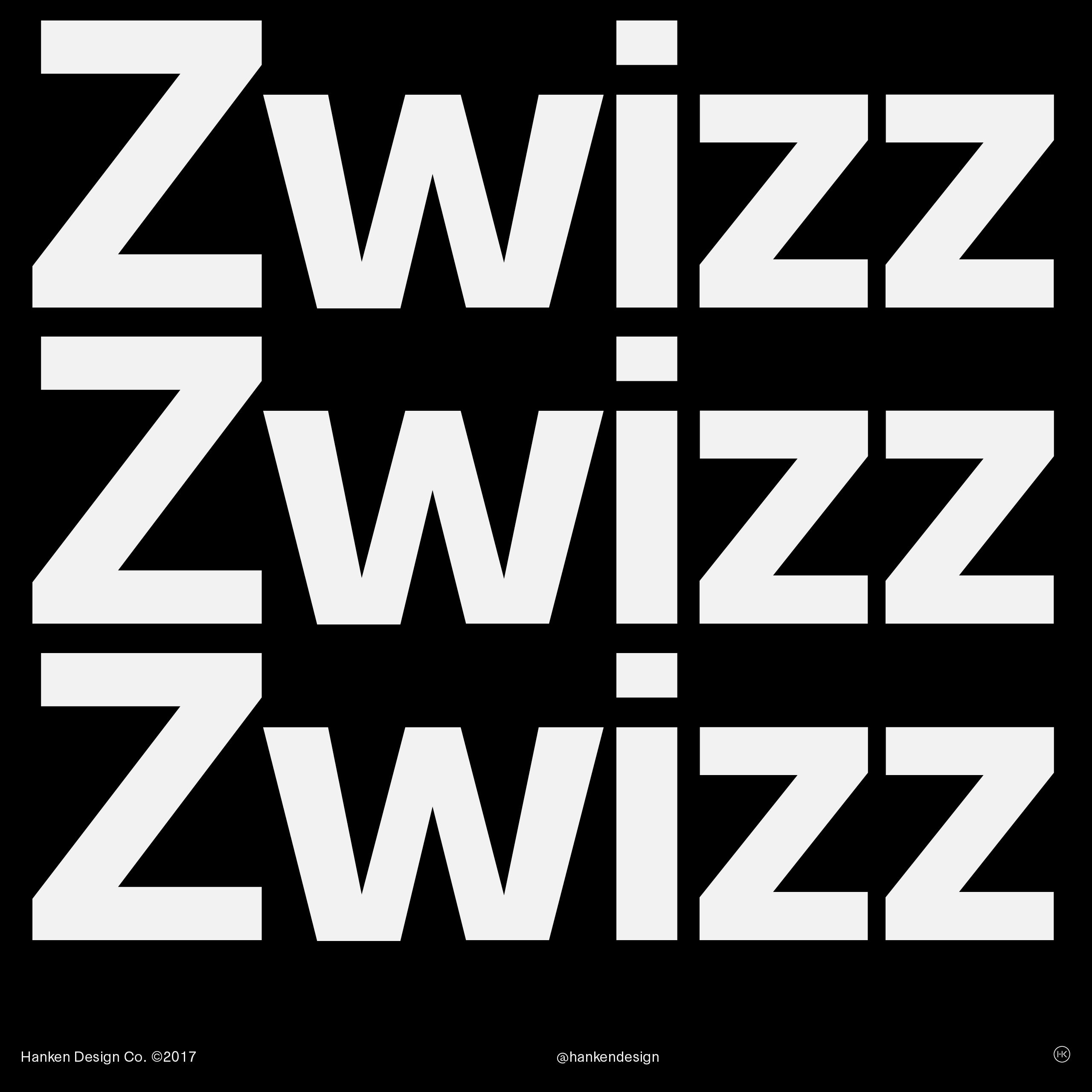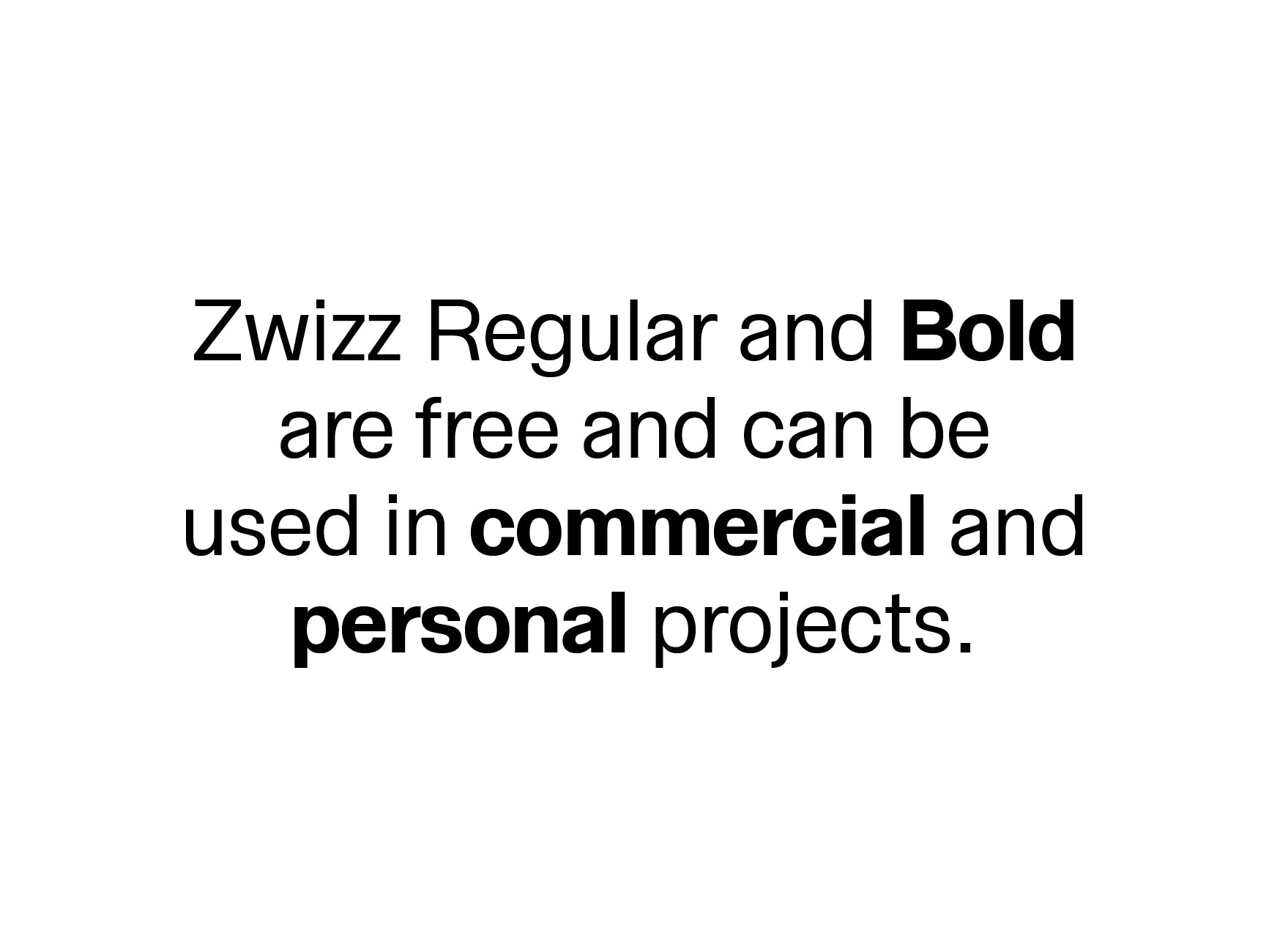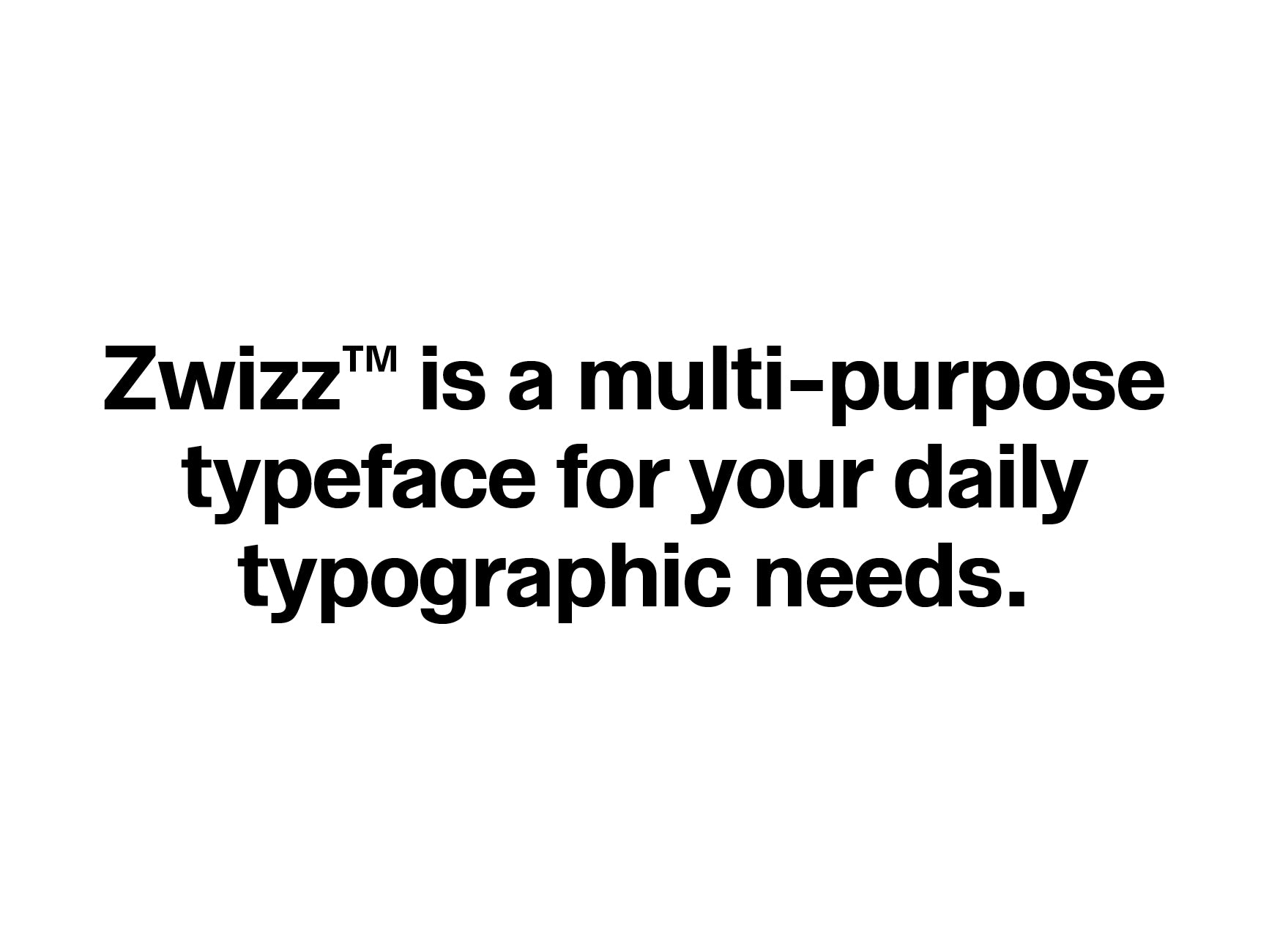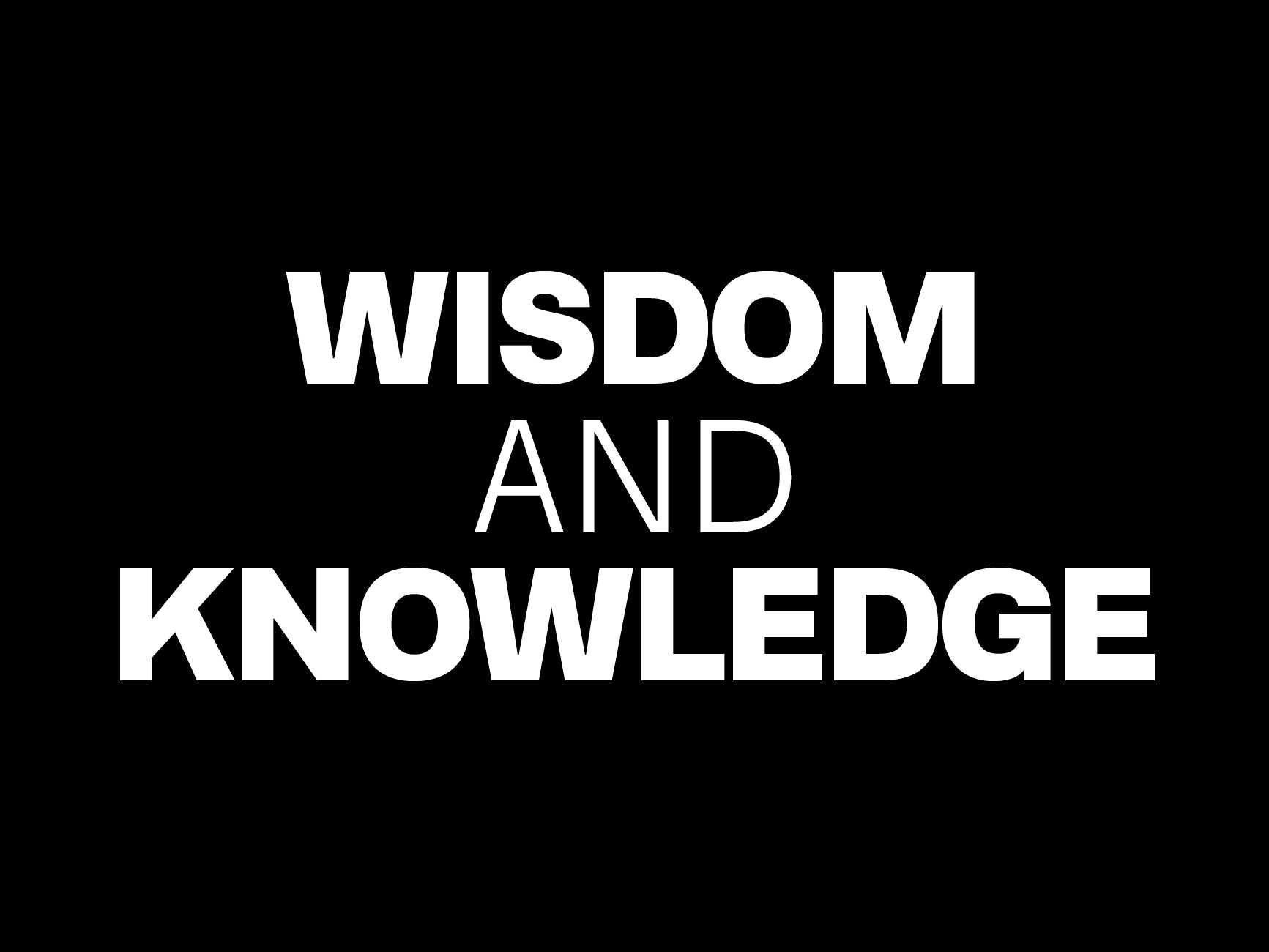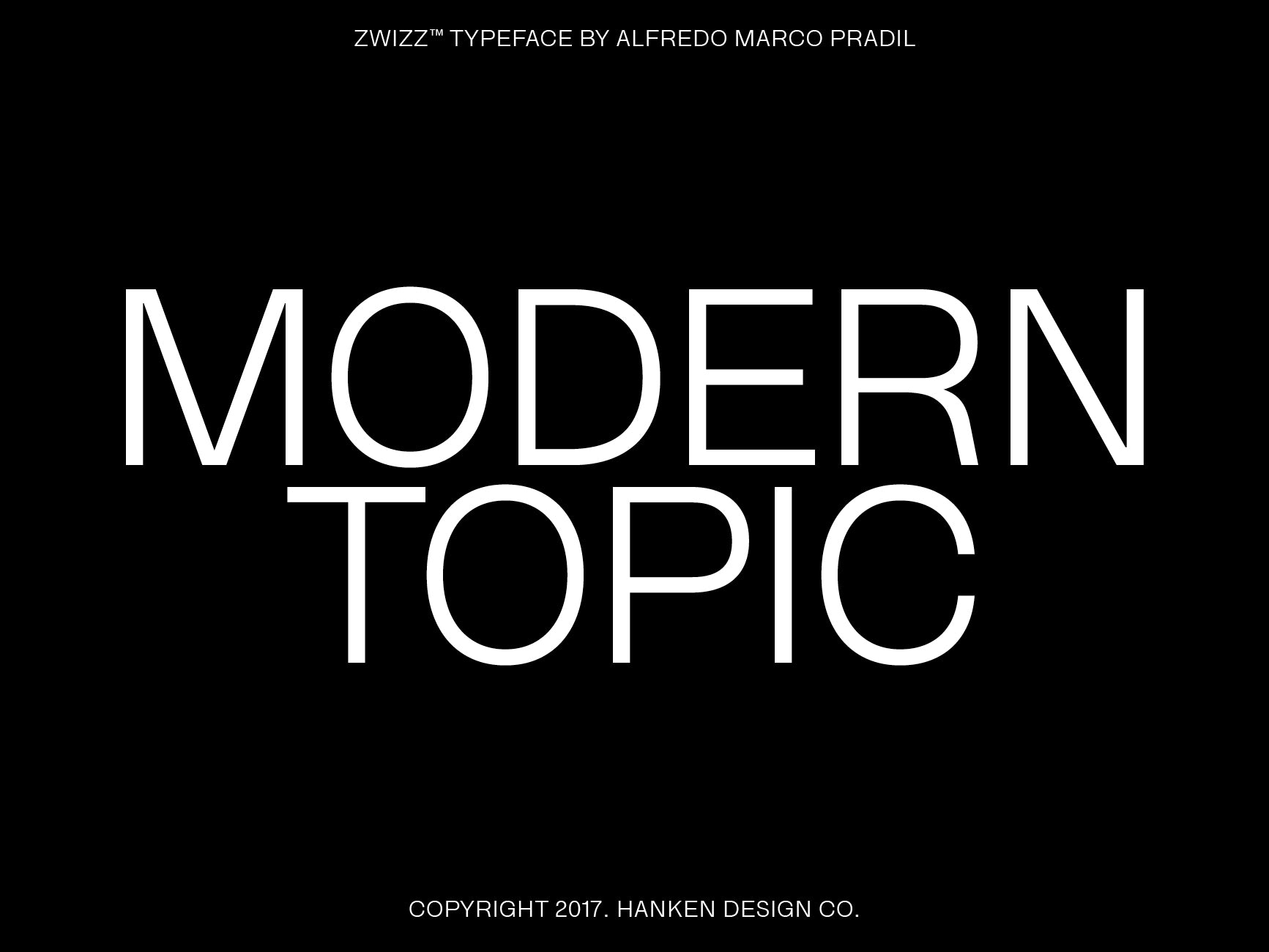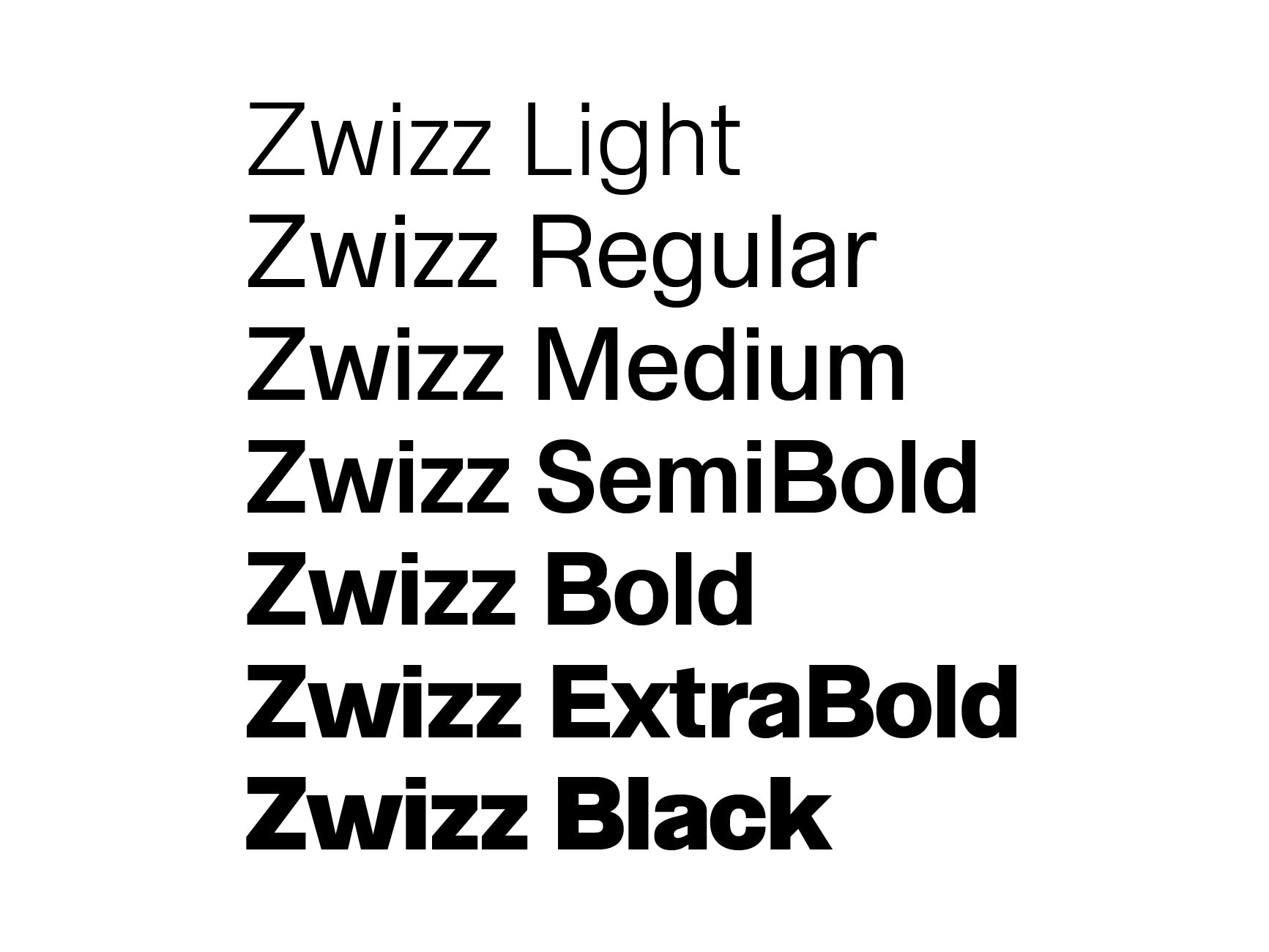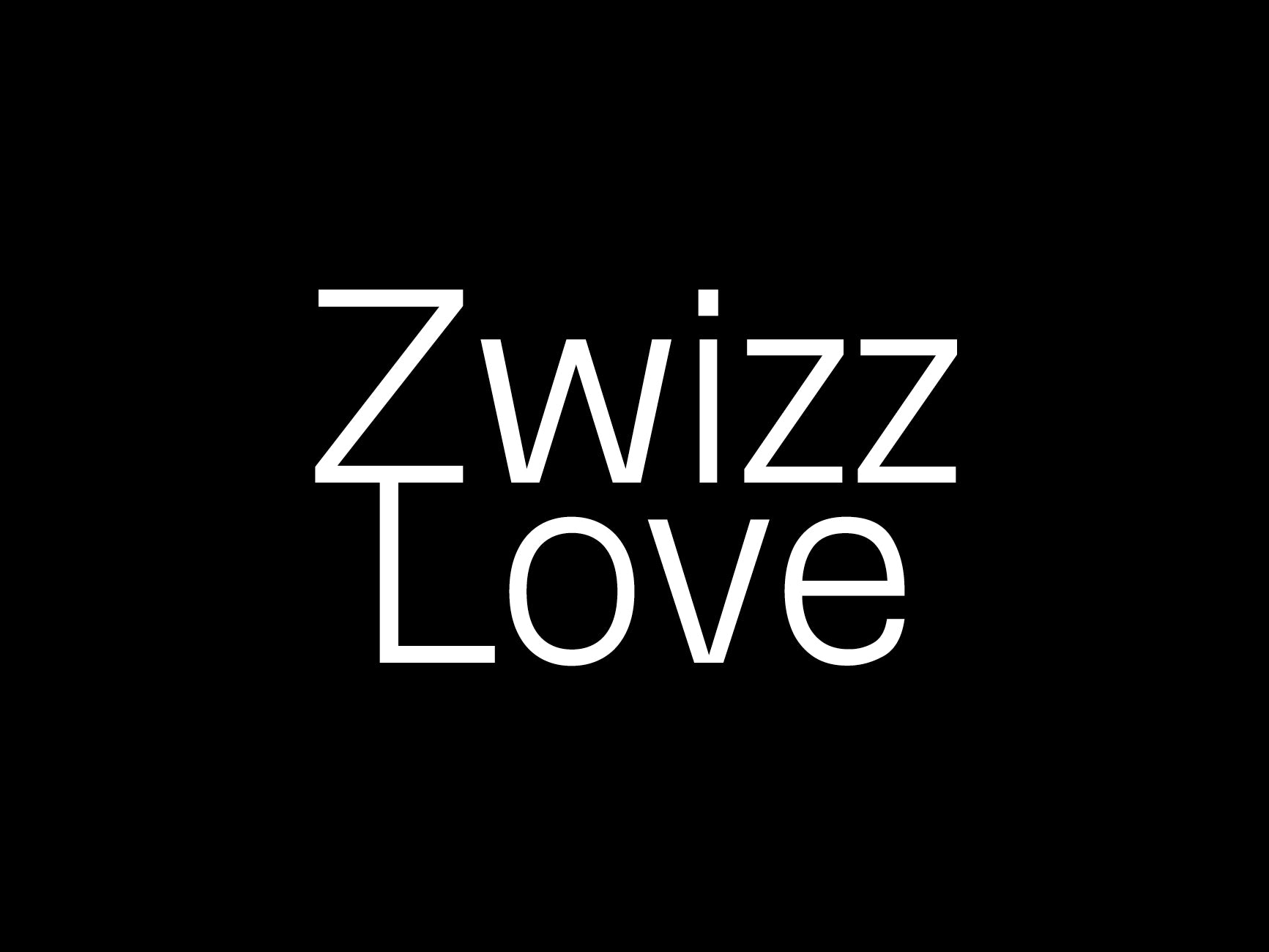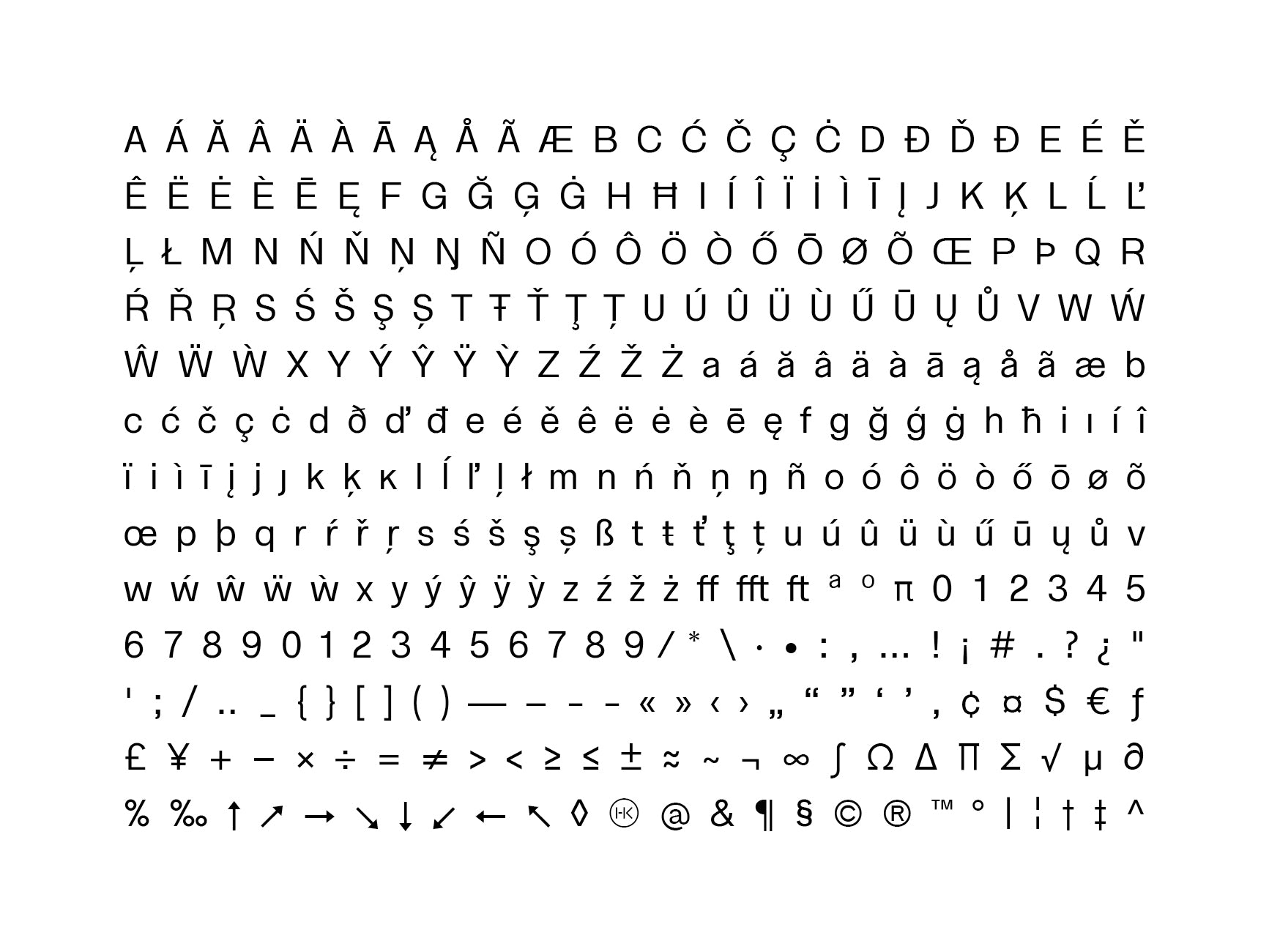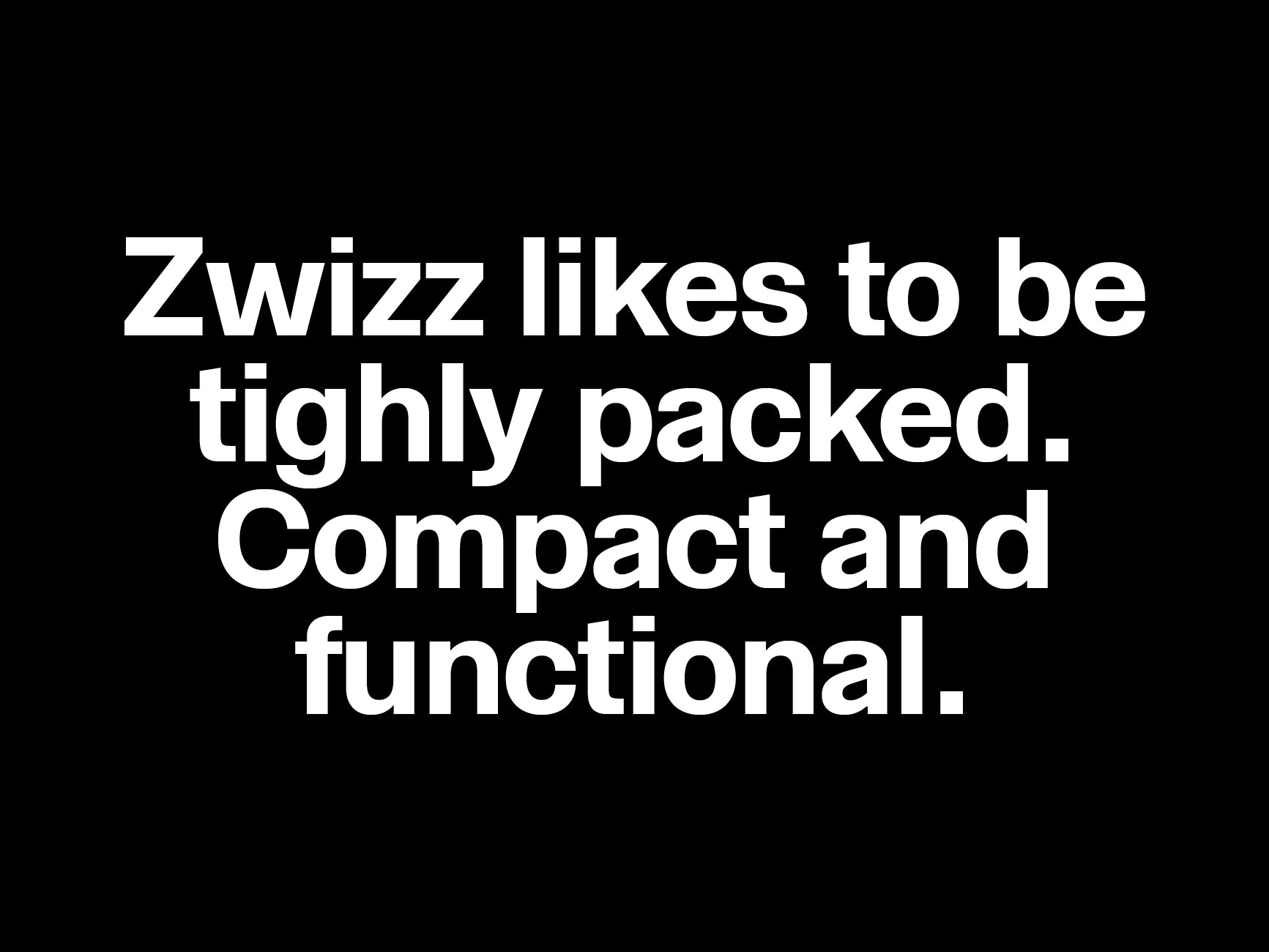
Zwizz
Zwizz is a sans-serif typeface that features horizontal and vertical termination cuts reminiscent of Helvetica. Its compact glyph design makes it ideal for tight typographic compositions. Zwizz offers a range of styles to suit various design needs, including Light, Regular, Medium, SemiBold, Bold, ExtraBold, and Black, all available in Roman style without italics.